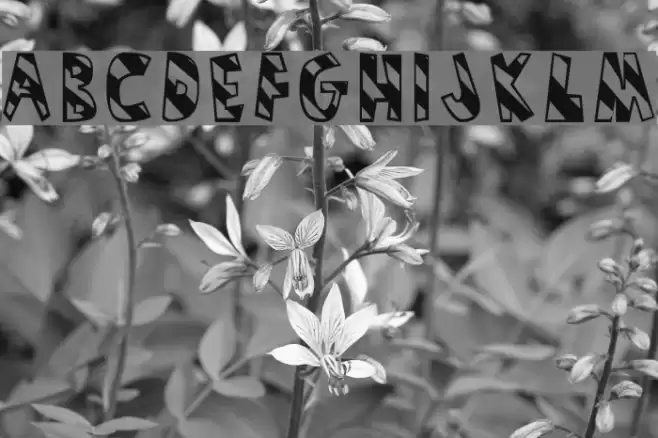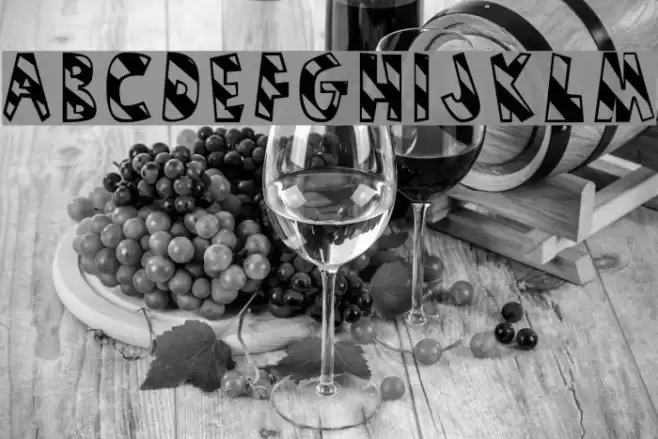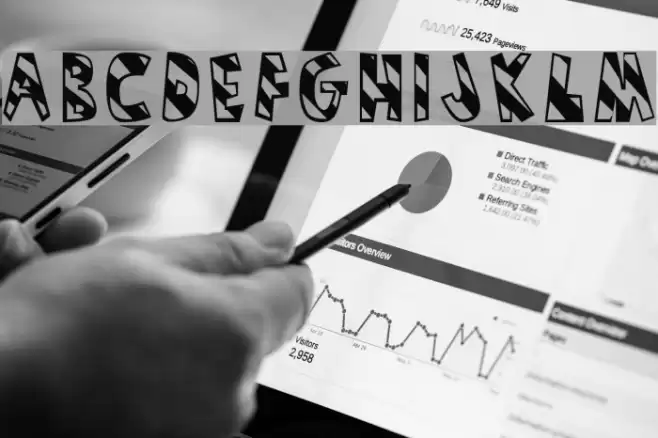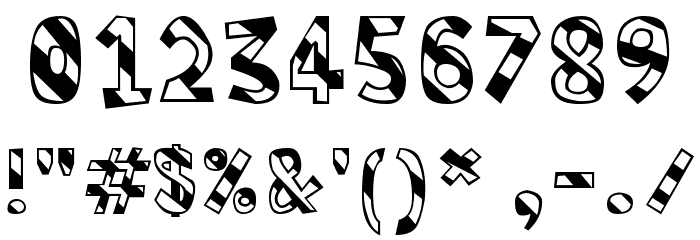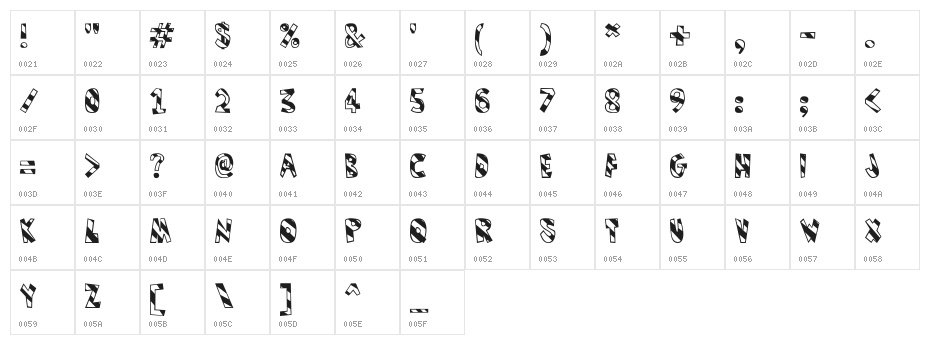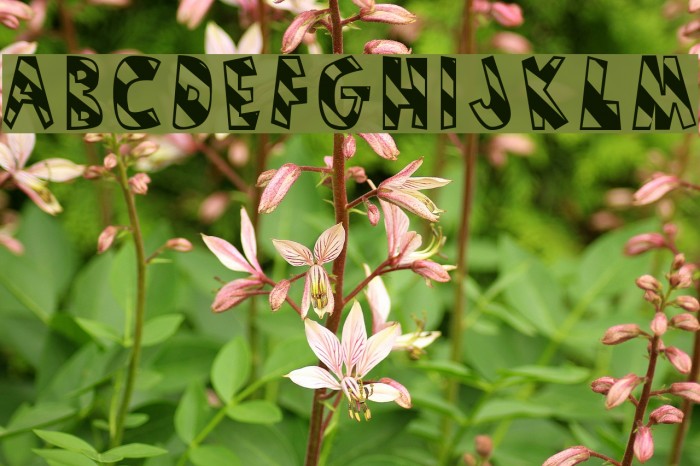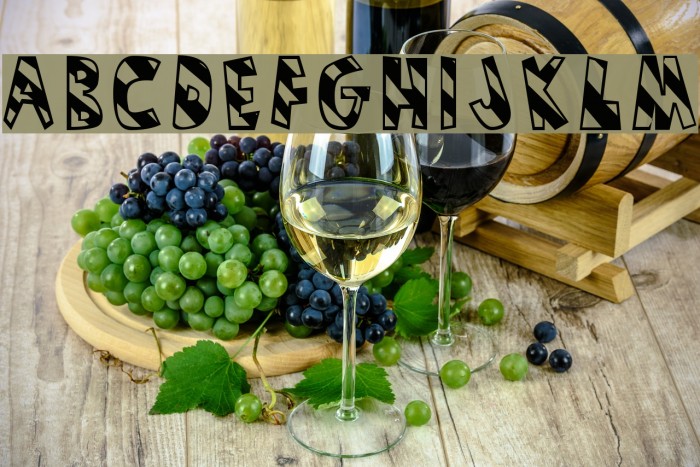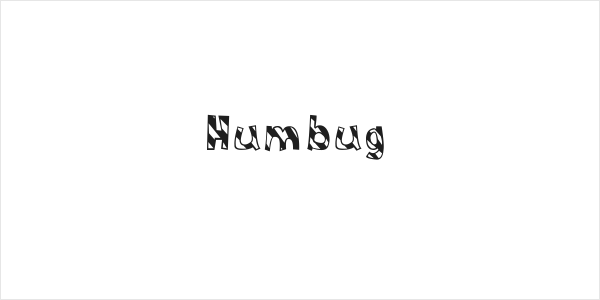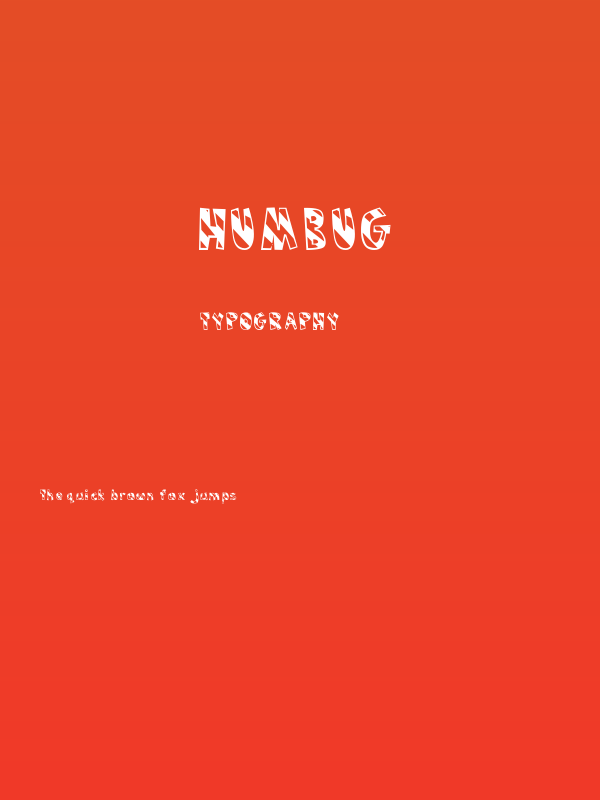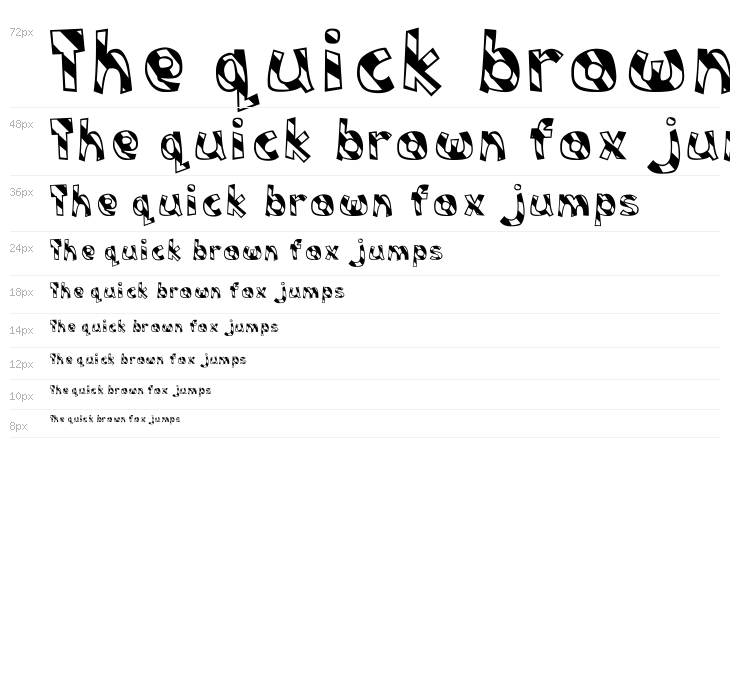
Humbug Font
Humbug Description
This font is a bold and playful decorative typeface characterized by its quirky and whimsical design. Each letter is filled with a pattern of irregular shapes and cutouts, creating a dynamic and eye-catching appearance. The font features a mix of sharp angles and smooth curves, giving it a unique and artistic flair. It maintains a consistent weight throughout, ensuring readability despite its unconventional style. The uppercase and lowercase letters are distinct yet harmonious, while the numbers and special characters follow the same playful theme. This font is perfect for projects that require a fun and creative touch.
A bold, playful decorative font with quirky patterns and dynamic shapes from Outline fonts.
- Proposed Projects: Ideal for children's books, playful branding, party invitations, and creative posters.
- Overall Style: Playful, Artistic